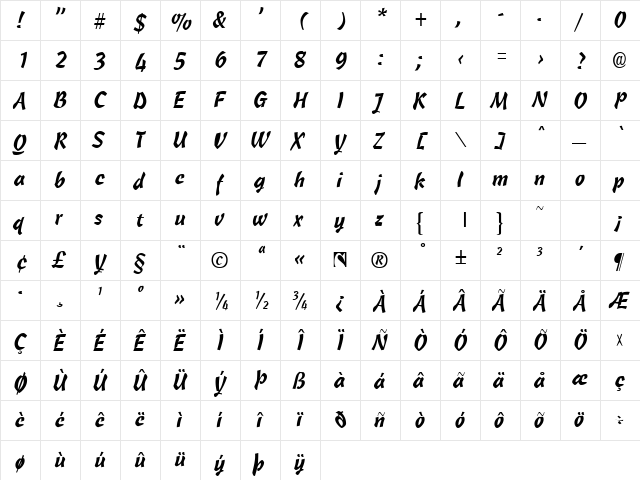
ChurchScript normal
Design Context for ChurchScript Typeface
ChurchScript flows with the natural rhythm of handwritten lettering, making it ideal for designs that call for warmth and personal expression.
Font Pairing: Combine ChurchScript with a simple geometric sans for maximum contrast — the tension between flowing curves and clean structure is a classic typographic pairing.
Pro Tip: Pair ChurchScript with a clean sans-serif for supporting text. The contrast between fluid script and geometric structure creates an elegant typographic hierarchy.